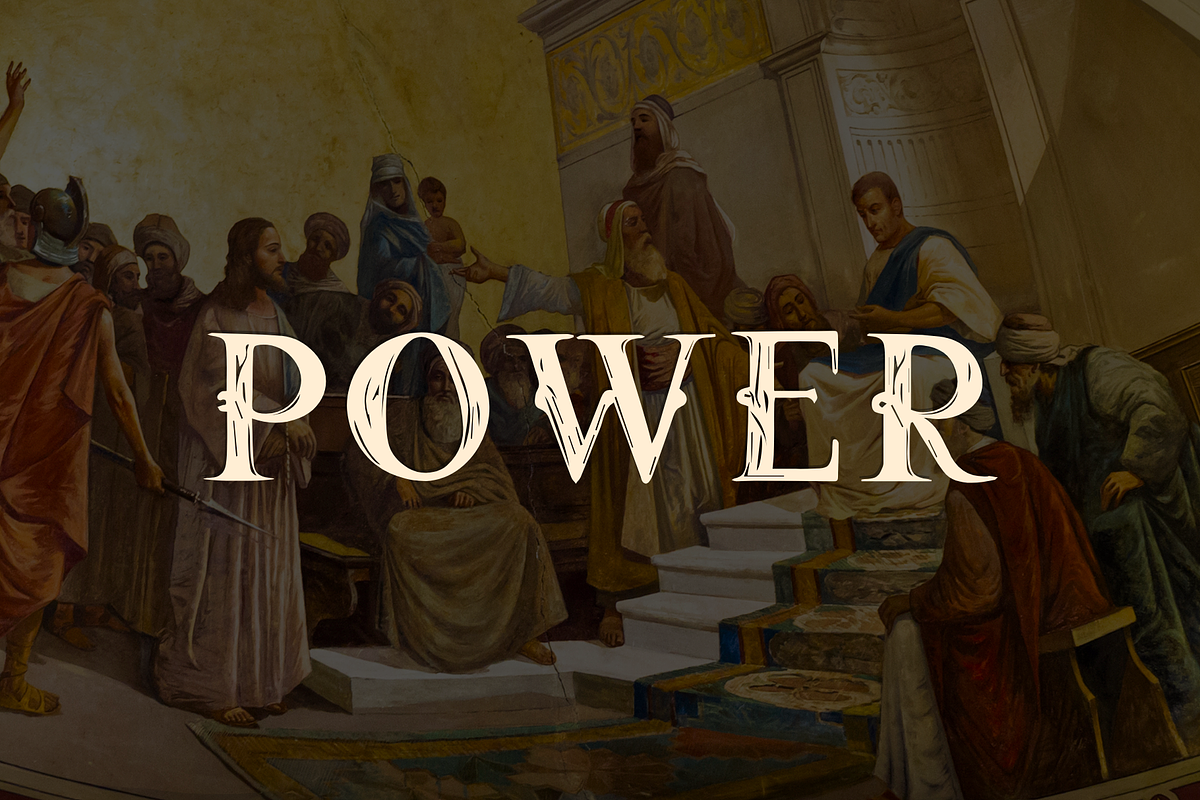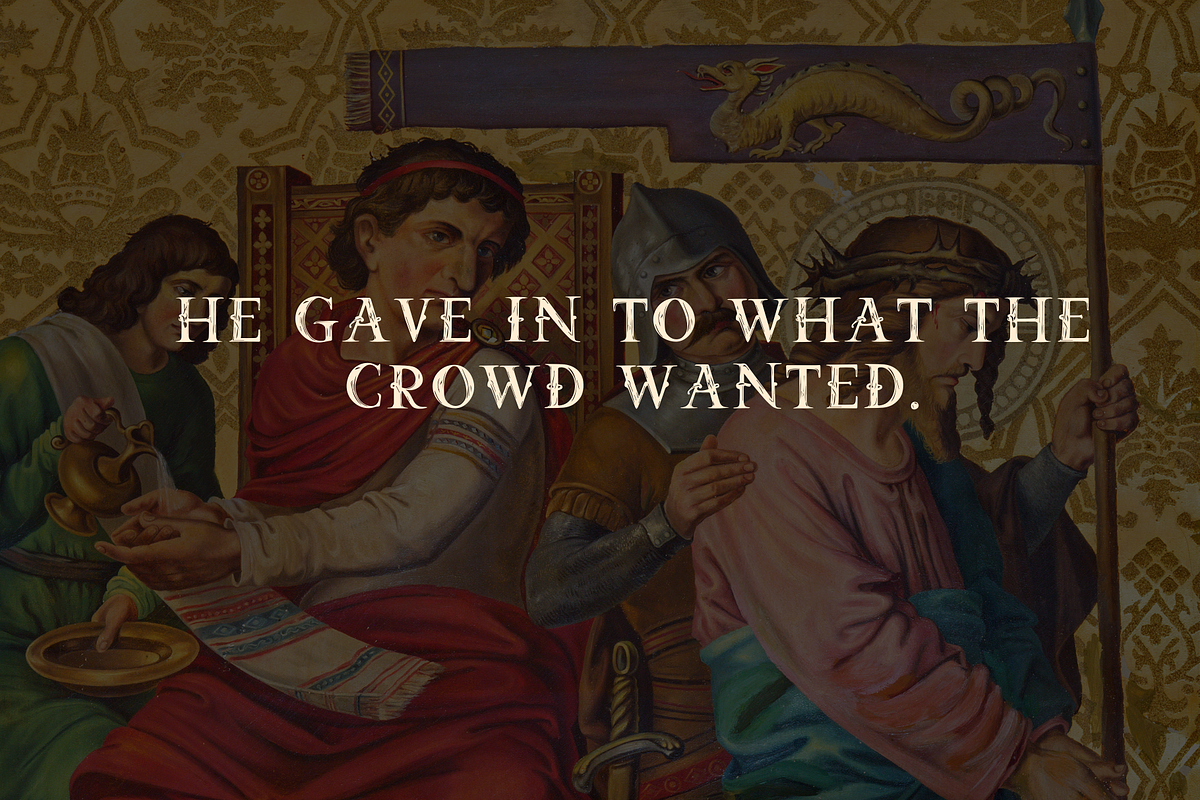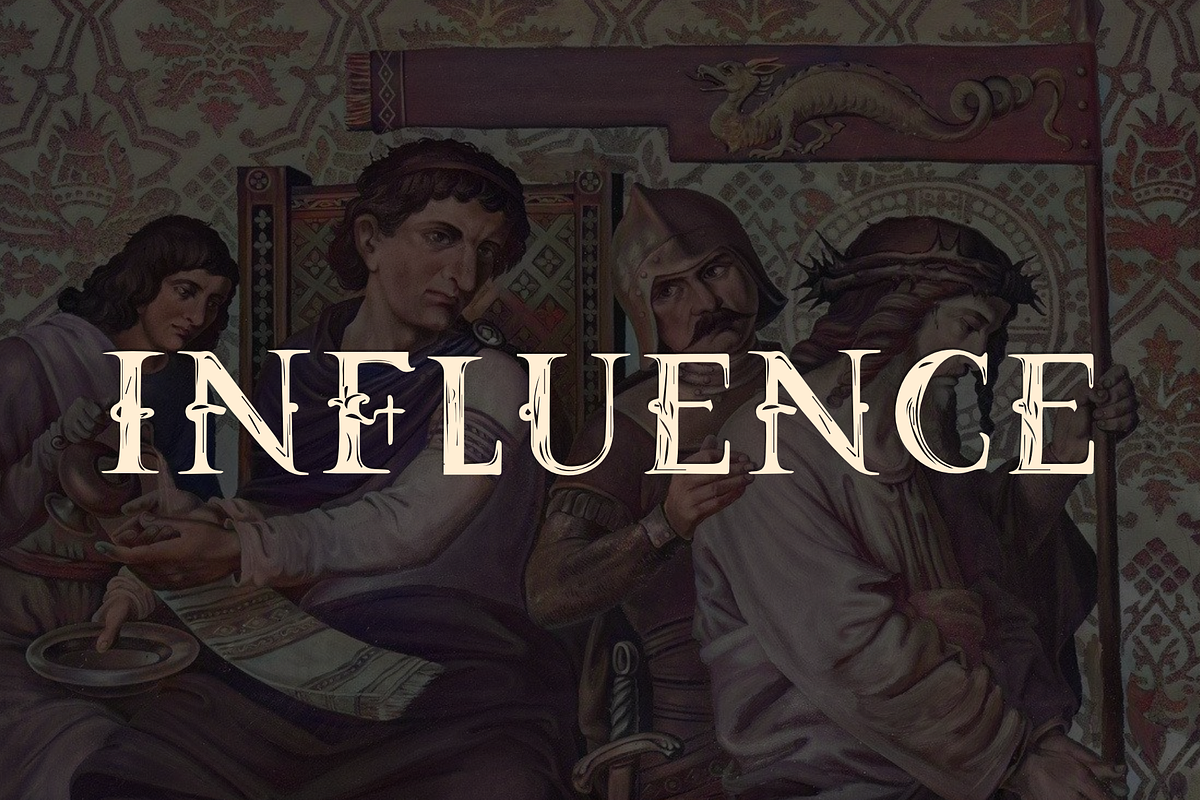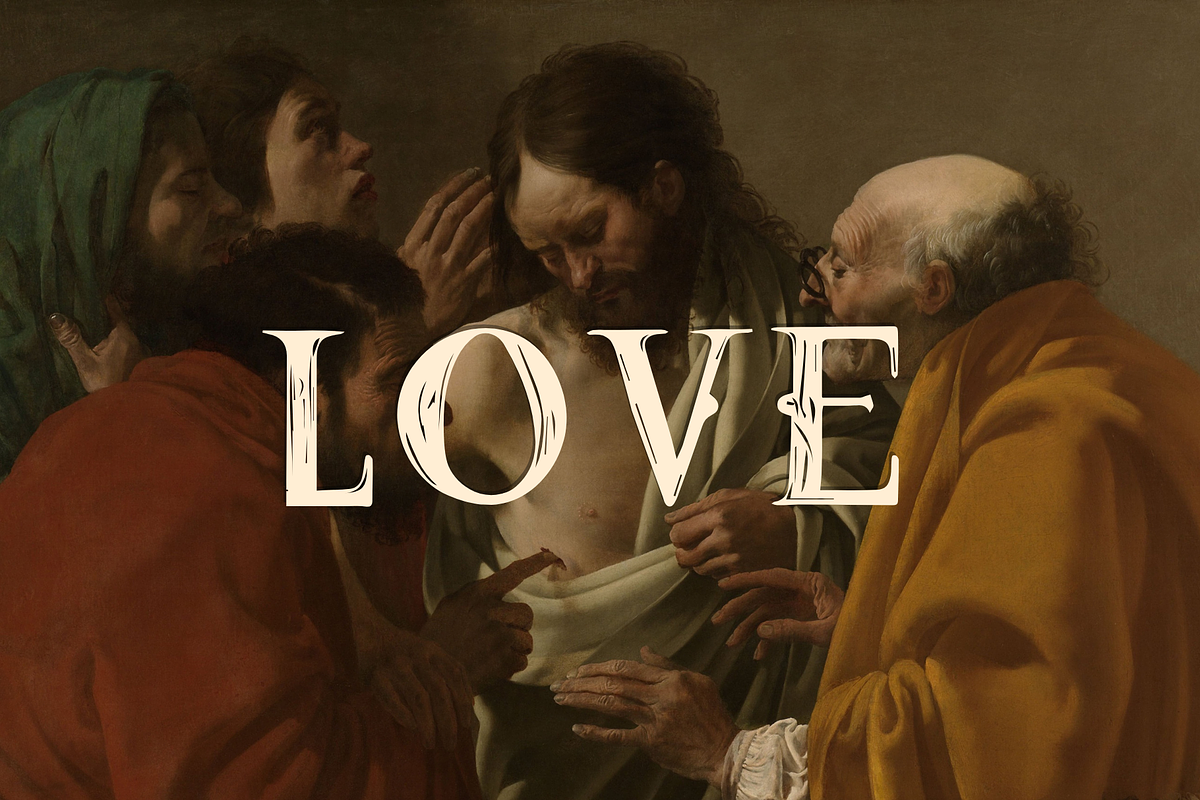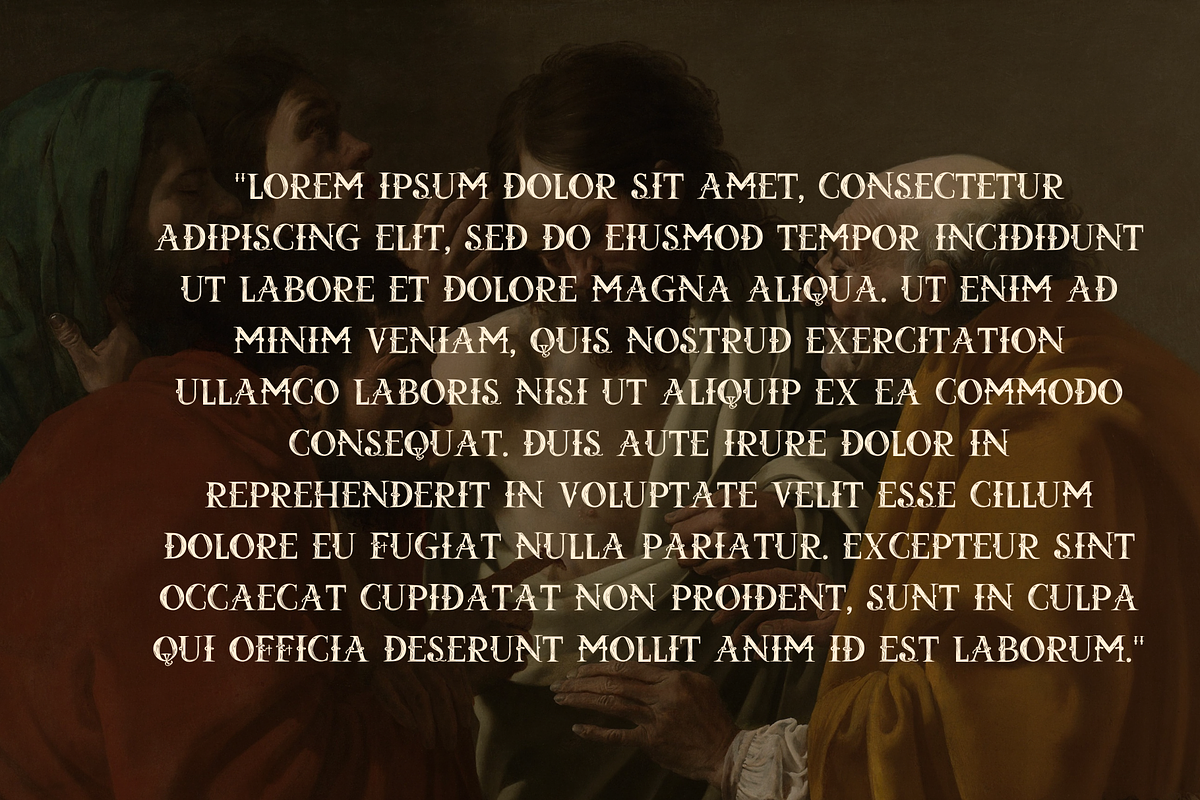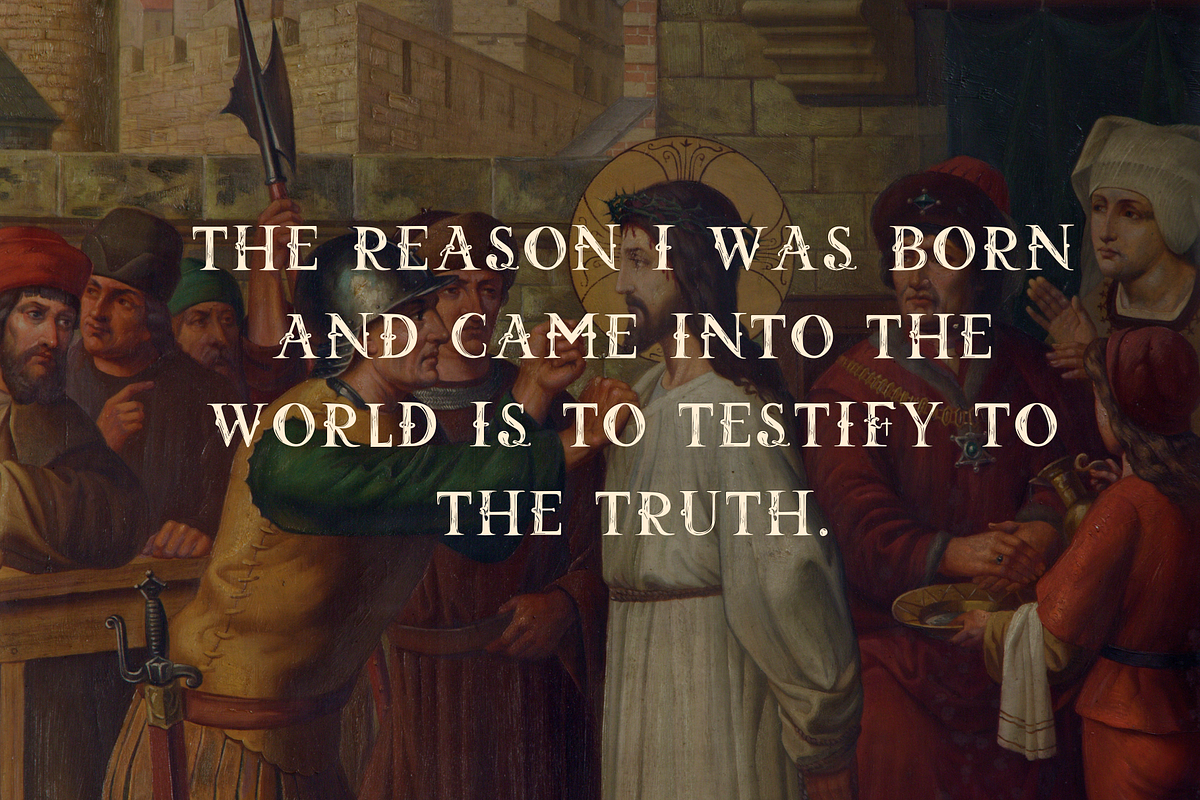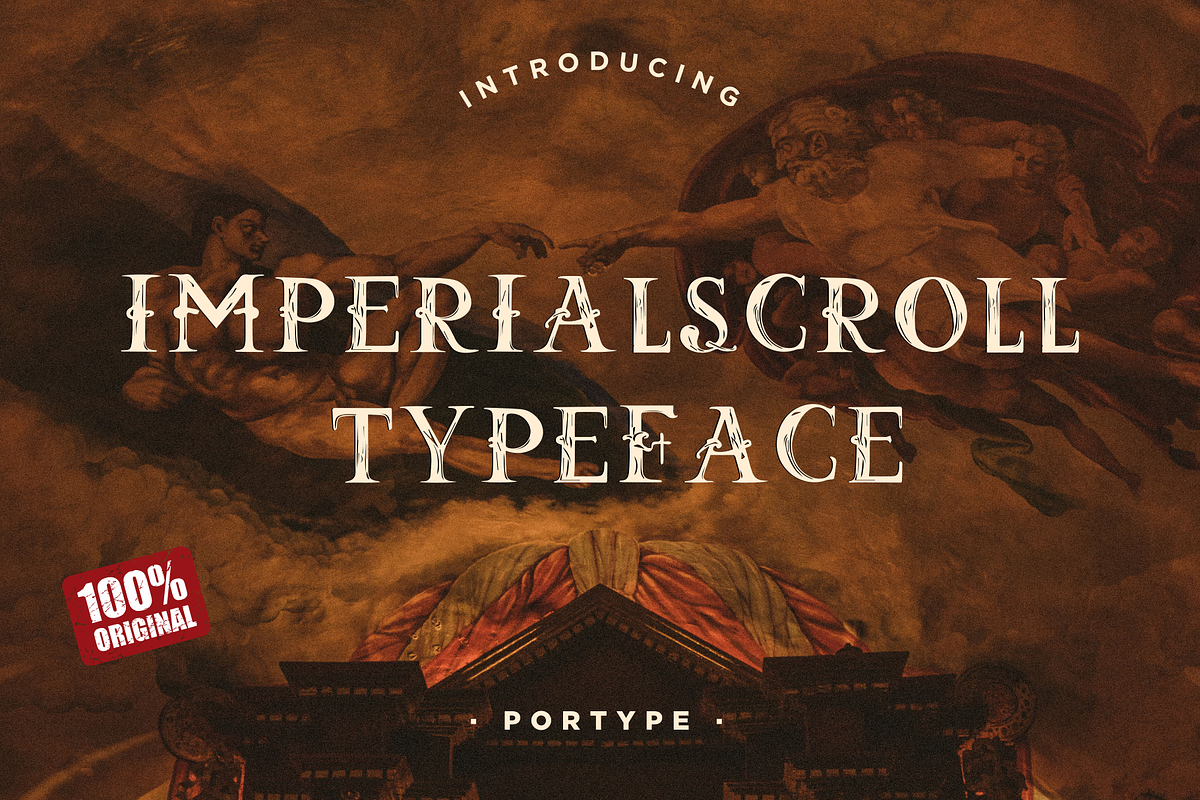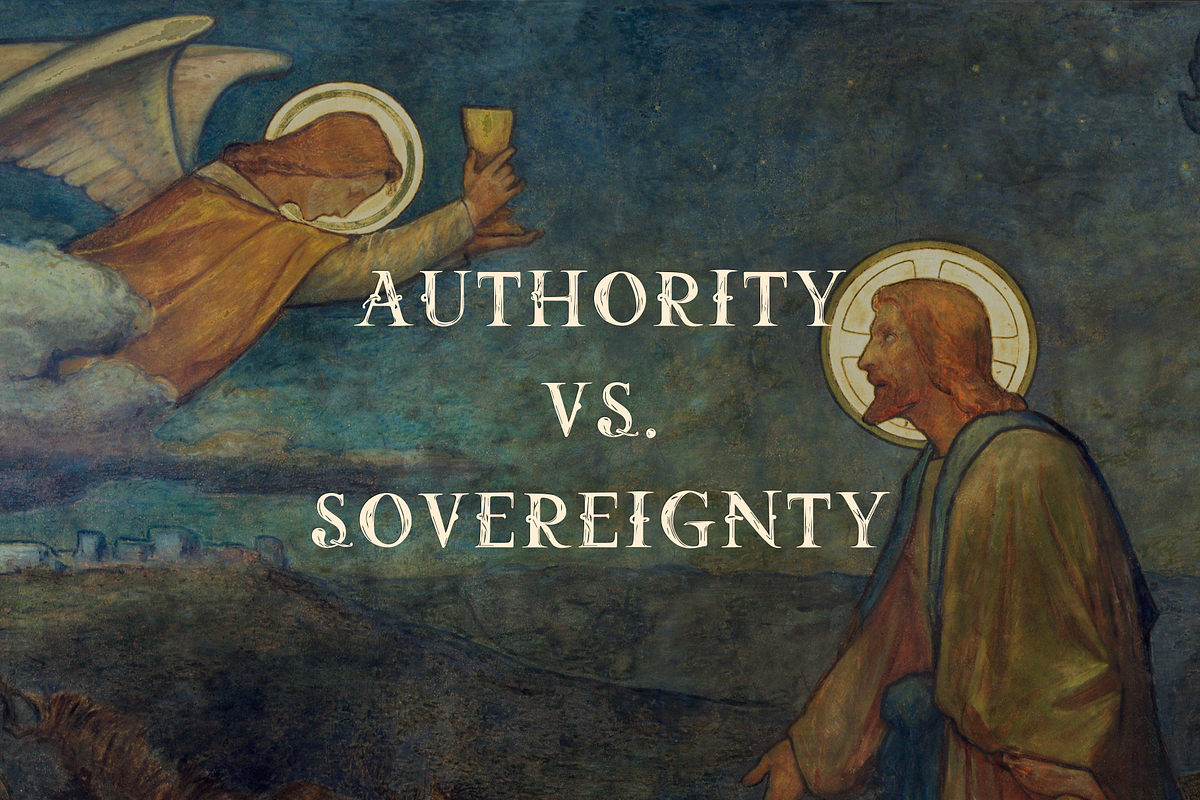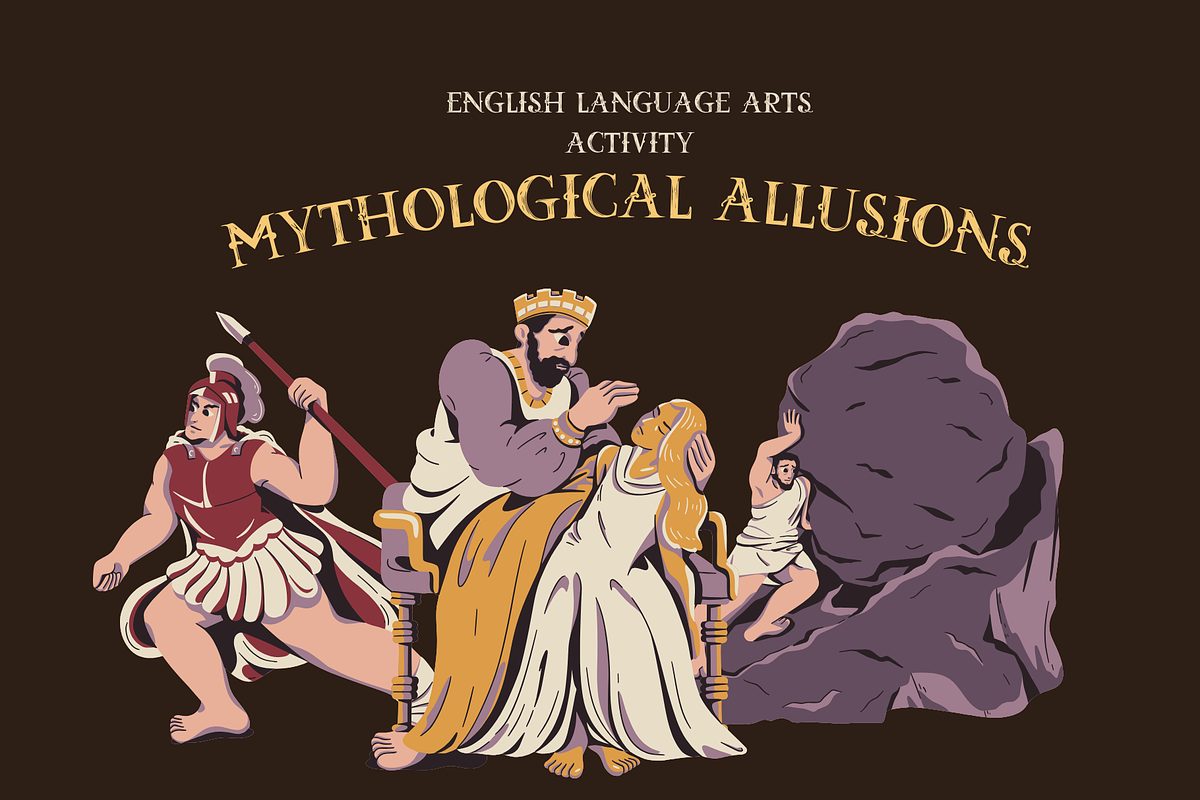
Imperialscroll - The kingdom
Imperialscroll is a majestic and regal typeface designed to evoke the grandeur and elegance of a royal court. With its intricate detailing and classical forms, this typeface is perfect for creating impactful titles for movies, posters, or any design project that requires a touch of nobility and sophistication.